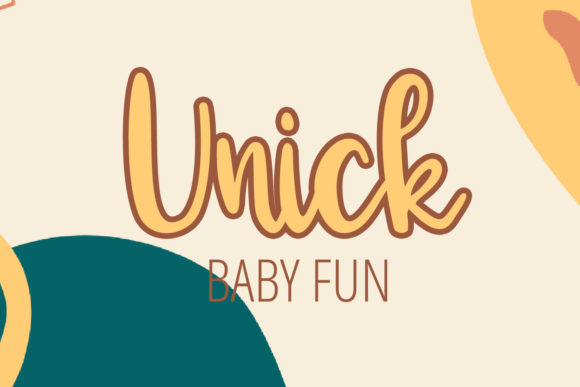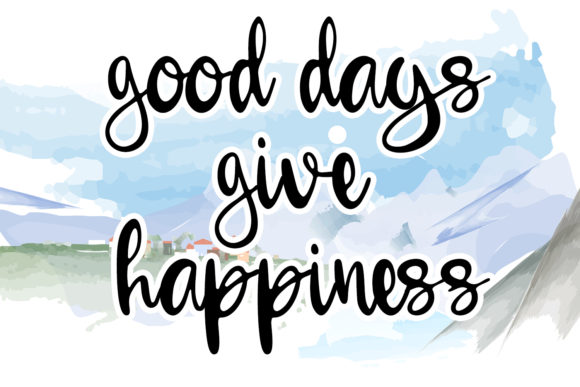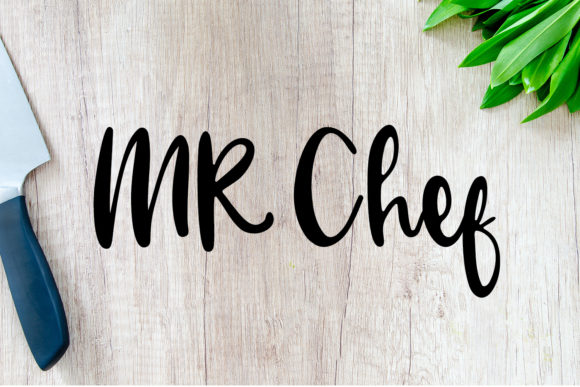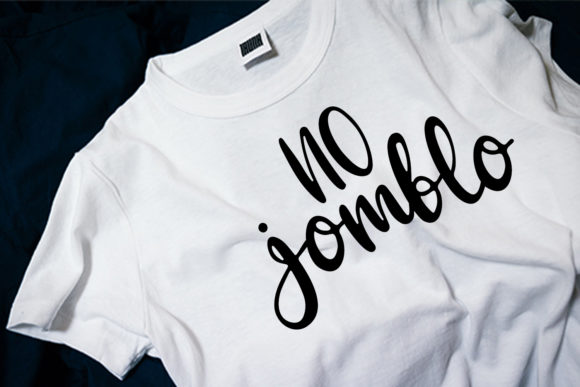
Dreamhigh Font: Elevate Your Designs with a Beautiful Handwritten Style
Are you tired of using the same old fonts in your designs? Do you want to add a touch of elegance and sophistication to your projects? Look no further than the Dreamhigh font, a stunning handwritten font that is sure to take your designs to the next level. In this article, we’ll explore the unique features of the Dreamhigh font, its benefits, and how you can use it to elevate your designs.
What is Dreamhigh Font?
Dreamhigh is a beautiful and flowing handwritten font that is perfect for designers and crafters looking for a unique and casual style. This font is designed to add a personal touch to your designs, making them stand out from the crowd. With its elegant and flowing script, Dreamhigh is ideal for a wide range of design projects, from wedding invitations and greeting cards to branding and advertising materials.
Unique Features of Dreamhigh Font
So, what makes Dreamhigh font so special? Here are just a few of its unique features:
- Handwritten style: Dreamhigh is a handwritten font, which gives it a personal and intimate feel. It’s perfect for designs that require a touch of warmth and elegance.
- Flowing script: The font features a flowing script that is both elegant and sophisticated. It’s perfect for designs that require a sense of movement and fluidity.
- Unique and casual: Dreamhigh is a one-of-a-kind font that is both unique and casual. It’s perfect for designers who want to add a touch of personality to their designs.
Benefits of Using Dreamhigh Font
So, why should you use Dreamhigh font in your designs? Here are just a few benefits:
- Adds elegance and sophistication: Dreamhigh font adds a touch of elegance and sophistication to your designs, making them perfect for high-end branding and advertising materials.
- Perfect for creative projects: Dreamhigh is ideal for creative projects such as wedding invitations, greeting cards, and other paper crafts.
- Easy to read: Despite its elegant script, Dreamhigh is easy to read, making it perfect for designs that require a clear and concise message.
How to Use Dreamhigh Font in Your Designs
Using Dreamhigh font in your designs is easy. Here are a few tips:
- Pair it with other fonts: Dreamhigh looks great when paired with other fonts. Try pairing it with a clean sans-serif font for a striking contrast.
- Use it for headings and titles: Dreamhigh is perfect for headings and titles, where its elegant script can really shine.
- Experiment with colors and textures: Dreamhigh looks great in a variety of colors and textures. Experiment with different combinations to find the one that works best for your design.
Who Can Use Dreamhigh Font?
Dreamhigh font is perfect for a wide range of designers and crafters, including:
- Graphic designers: Dreamhigh is perfect for graphic designers who want to add a touch of elegance and sophistication to their designs.
- Paper crafters: Dreamhigh is ideal for paper crafters who want to create beautiful and unique paper crafts, such as wedding invitations and greeting cards.
- Branding and advertising professionals: Dreamhigh is perfect for branding and advertising professionals who want to create high-end branding and advertising materials.
In conclusion, Dreamhigh font is a beautiful and flowing handwritten font that is perfect for designers and crafters looking for a unique and casual style. With its elegant and flowing script, Dreamhigh is ideal for a wide range of design projects, from wedding invitations and greeting cards to branding and advertising materials. Whether you’re a graphic designer, paper crafter, or branding and advertising professional, Dreamhigh font is sure to elevate your designs and take them to the next level.